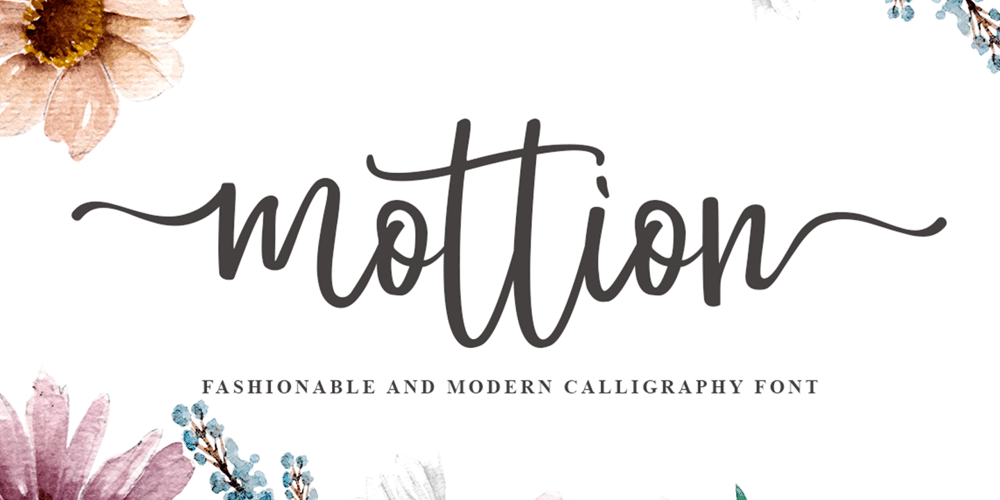
Mottion Font Family was designed by Sarwo Edhi Prayitno and published by Haksen. Mottion contains 1 styles and family package options. Introducing the lovely new Mottion Fashionable Calligraphy Font!Mottion was built with OpenType features and includes beginning and ending swashes, numbers, punctuation, alternates, ligatures and it also supports other languages :)Installing Your New Font: This font can be installed in all software that can read standard fonts.Accessing the swashes / opentype features / glyphs: In order to access the alternate characters in this font, you need a program that supports OpenType features such as Adobe Indesign, Adobe Illustrator CS, or Adobe Photoshop CC.More Questions? Here are some (potential) answers! Fonts are allowed to be used in templates for sale through separate servers such as Templeet, Corjl, etc. with the purchase of the CORPORATE license. Any time the end-user (your customer) edits a product for sale with this font, the corporate license needs to be purchased. Commercial use for this font is allowed for unlimited projects! You are not permitted to resell this font in any way.